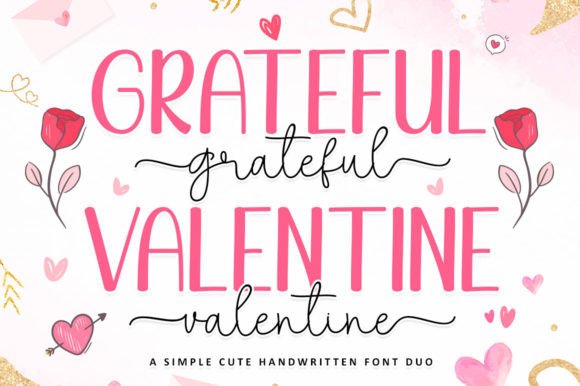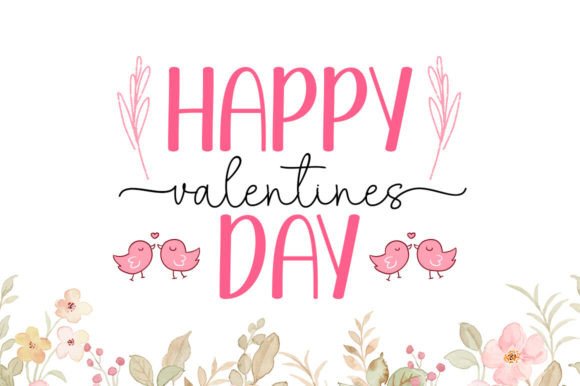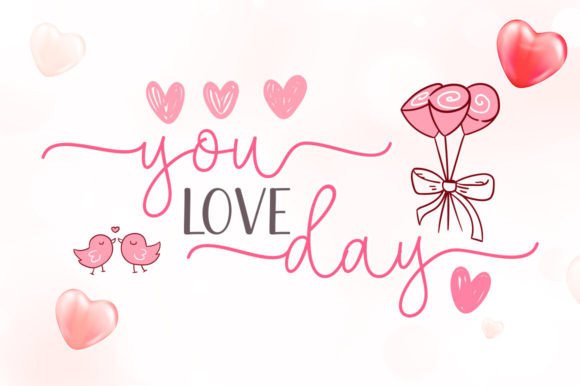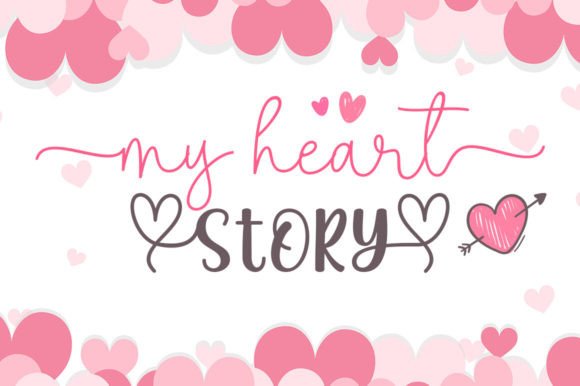
Grateful Valentine Font
About the Grateful Valentine Font
Presenting Grateful Valentine Font, a unique and stylish typeface that will make your work stand out. Grateful Valentine Font Duo is this amazing typeface handmade script font we created in freestyle for those of you who do work and crafts.
It’s perfect for any type of work you’re working on various purposes such as logos, wedding invitations, headings, t-shirts, letterheads, signage, labels, news, posters, badges, etc.
Grateful Valentine’s hand-drawn quality makes it ideal for projects requiring a personal touch, such as wedding stationery, branding for artisan businesses, or short, impactful headlines. Its expressive nature, however, makes it less suitable for body text or UI elements where readability is paramount. Extended use could strain legibility.
The font’s friendly and slightly whimsical personality pairs well with clean sans-serif fonts like Montserrat or Lato for a balanced contrast. For a more sophisticated look, consider pairing it with a classic serif like Garamond or a geometric sans-serif like Futura. Avoid pairing it with other highly decorative scripts to prevent visual clutter.
Grateful Valentine exudes warmth and approachability. Brands focusing on handmade goods, artisanal food, or events emphasizing romance and celebration would find it particularly effective.
Grateful Valentine Font Usage Examples
Grateful Valentine Font Example